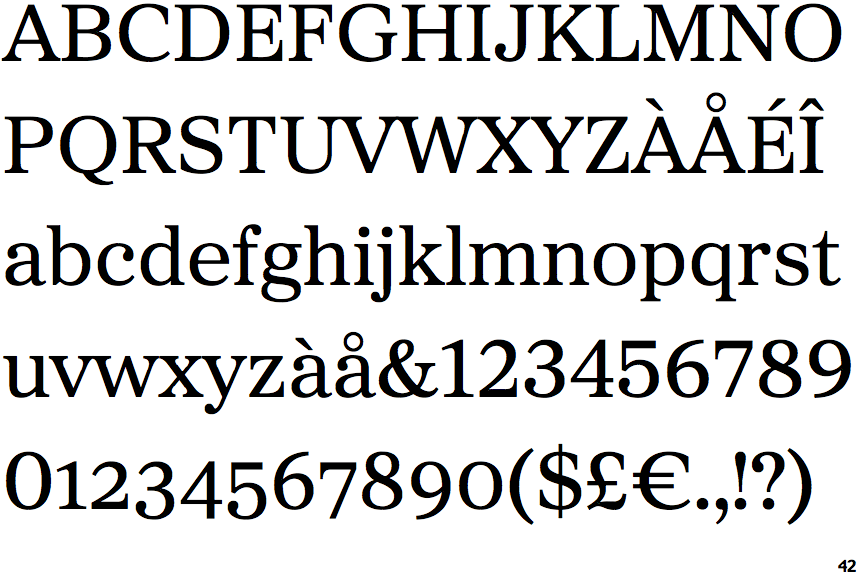
Proxima Sera
An ideal Companion to the font Proxima Nova.
Designer: Mark Simonson
Year: 2021-2022
Publisher: Mark Simonson
An OpenType font that includes both lining and oldstyle figures.